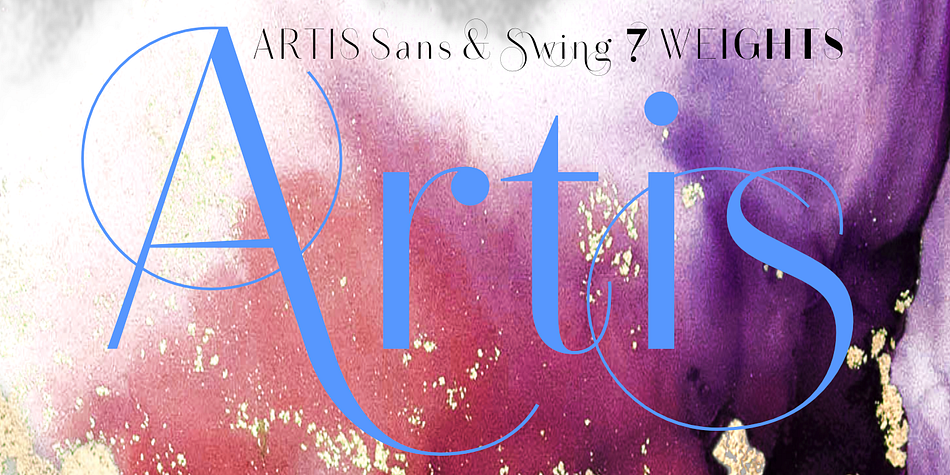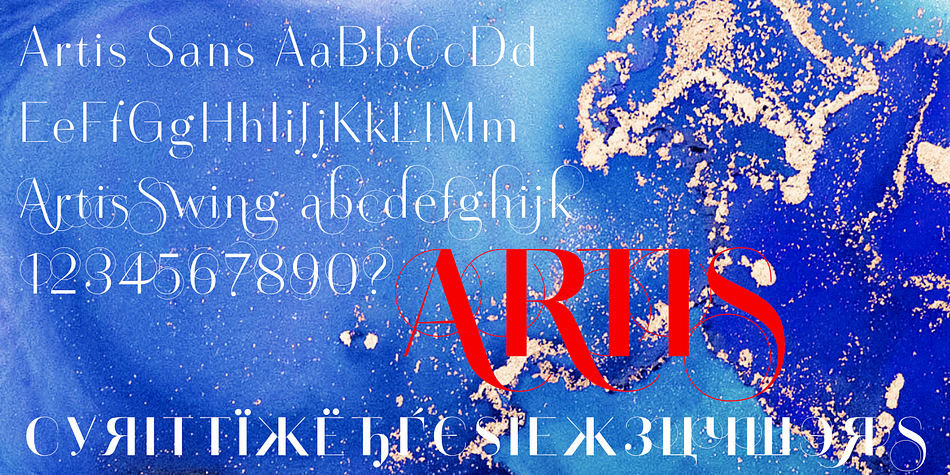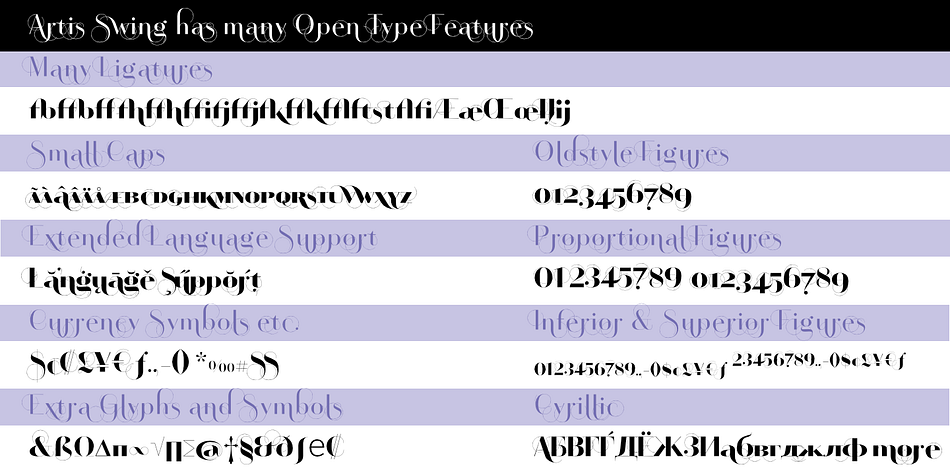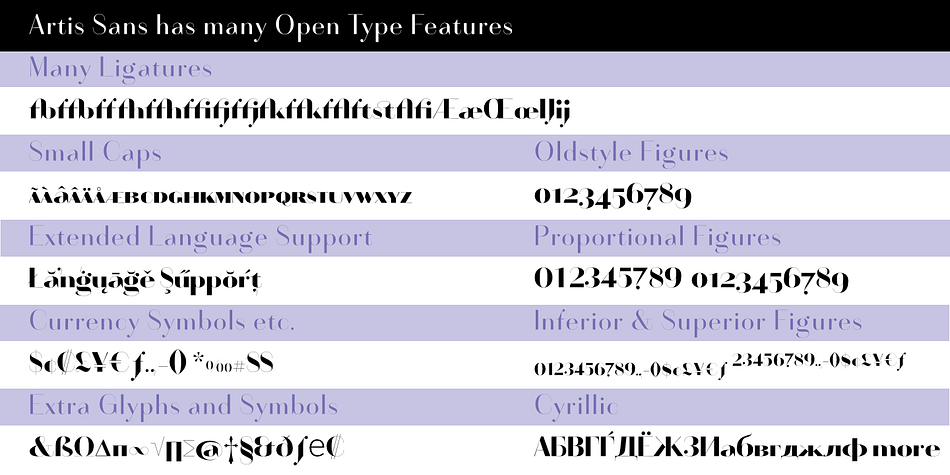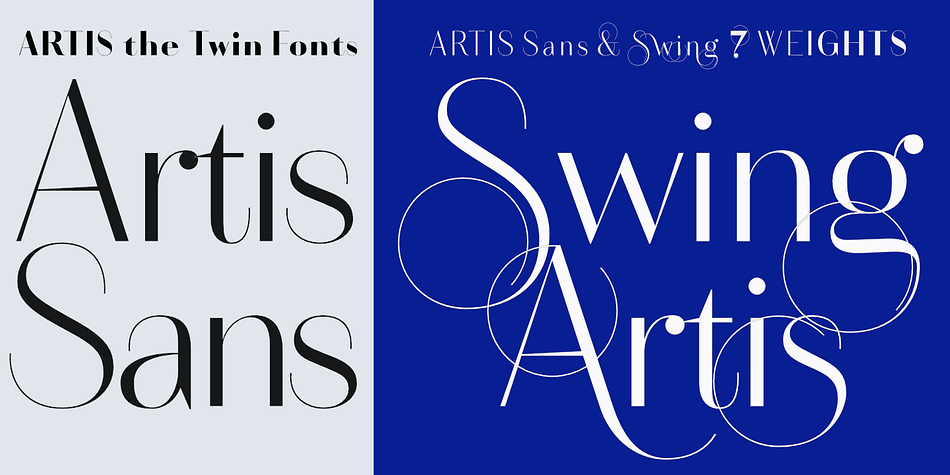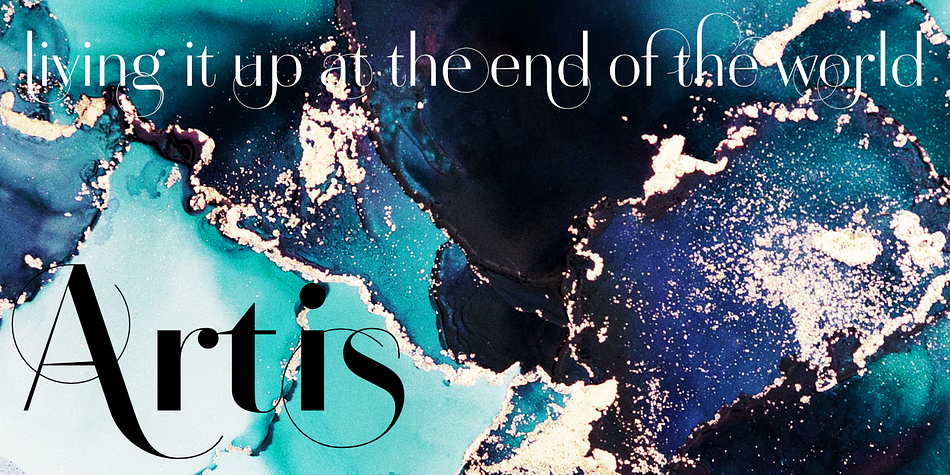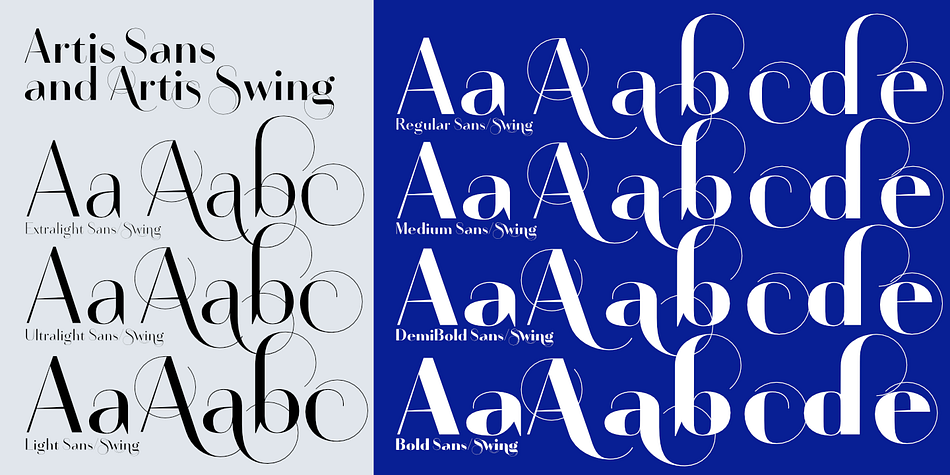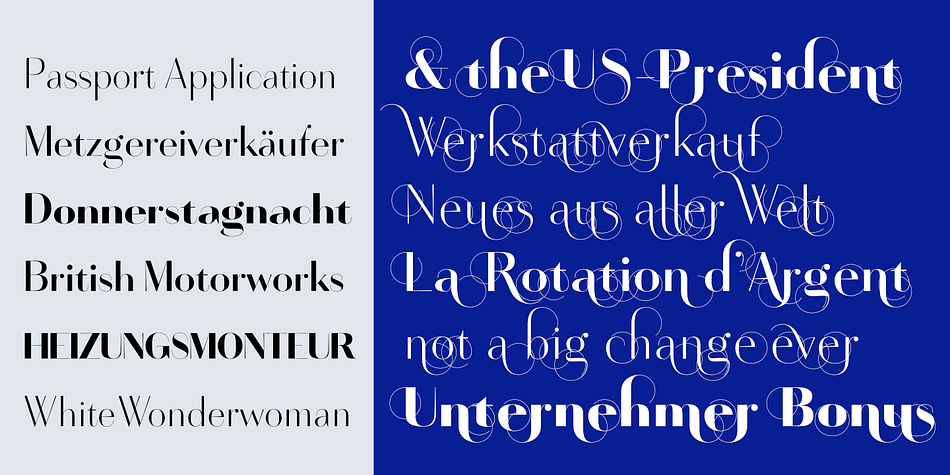
Designed by Gert Wiescher, Artis is an art deco and display sans font family. This typeface has twelve styles and was published by Wiescher-Design.
»Artis« is the name for my latest art-project-font. Obviously I just chopped off the last »t«. Then I looked it up on Wikipedia and what do you know, it is of latin descent. »Ars Gratia Artis« which means »art for arts sake« or in French »l’art pour l’art«, a perfect font name. If I would cut off the »s« as well it would mean disambiguation and that in turn is, what I just did here. Enough disambiguation!
»Artis« is a modern classical beauty with extreme contrast between up- and downstrokes that make it unique with a touch of art deco and showing Renaissance roots. But – »Artis« is a twin-font that has an elegantly decorated twin sister »Artis-Swing«. Between the 2 fonts you have endless possibilities for combination. I love these twins!
It is a great everyday workhorse with seven weights from ExtraLight to Bold and all the necessary weights in between. Great for short copy and elegant headlines!
With 964 Glyphs it is a truly European font designed for all Central European and Latin using countries. »Artis« has a set of Cyrillic that is – besides Russia – also good for Serbia, Macedonia and Ukraine. It has oldstyle- and lining-, tabular- and tabular-oldstyle-figures and many ligatures.
»Artis« comes in Sans and Swing and is an elegant, playful and friendly font. Enjoy!